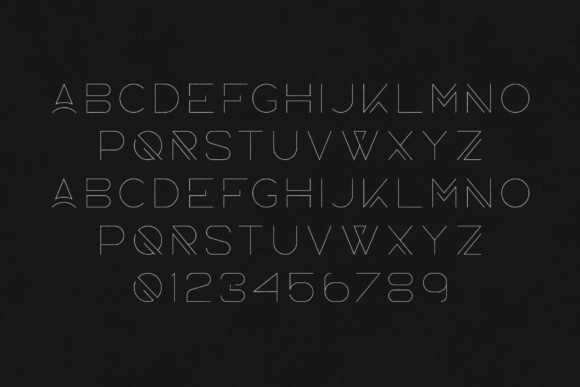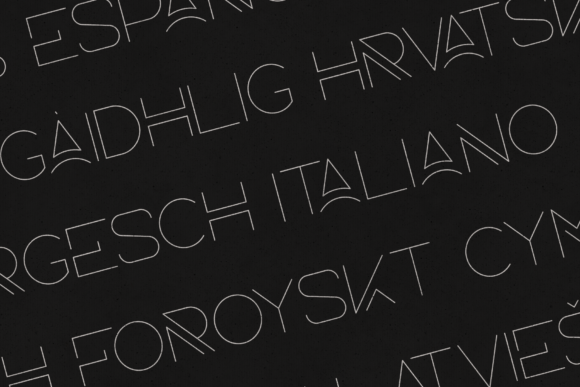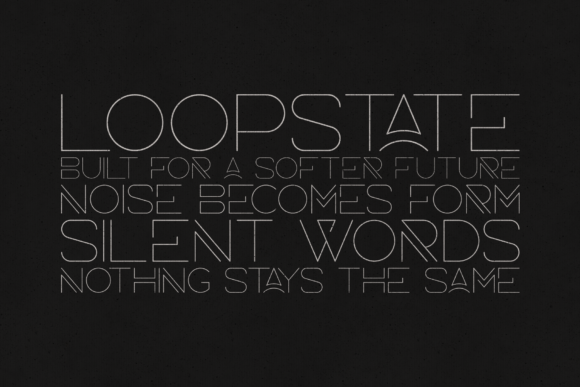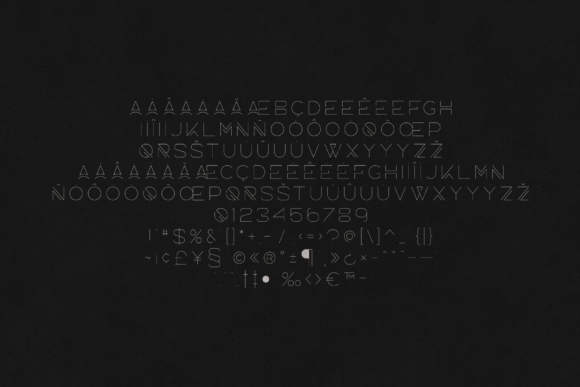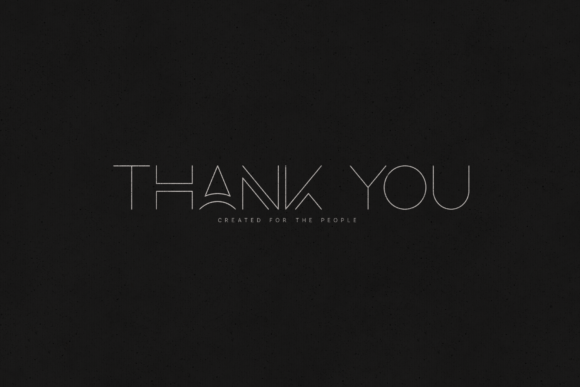
Introduction to Inertia Branding Edition Font
INERTIA is a refined ultra-thin display typeface built for modern luxury identities and conceptual branding systems.
Defined by precision line weight, architectural geometry, and distinctive letter construction, it delivers an elevated aesthetic that feels both futuristic and timeless This is not a body font.